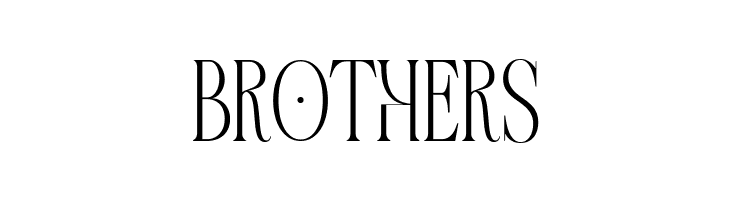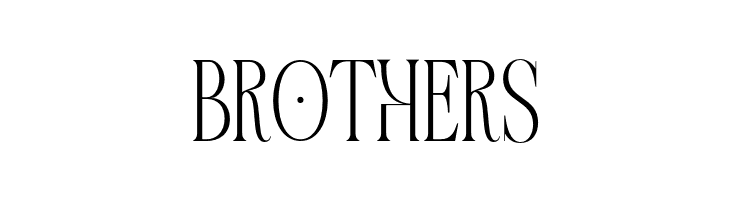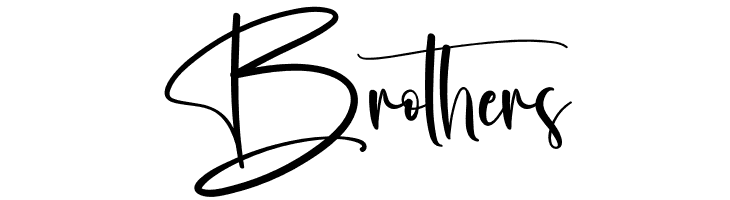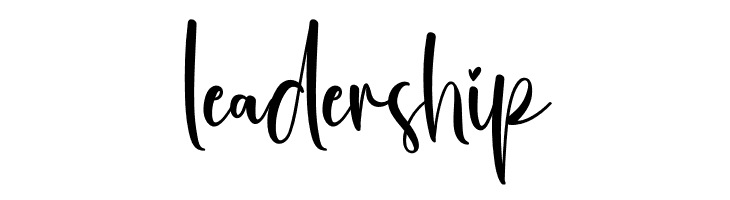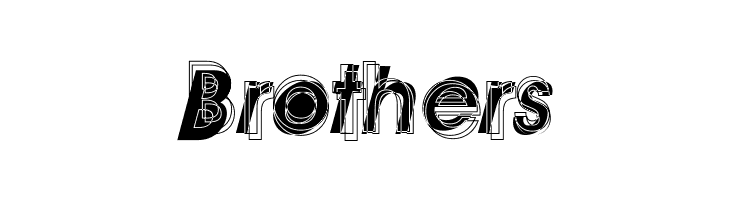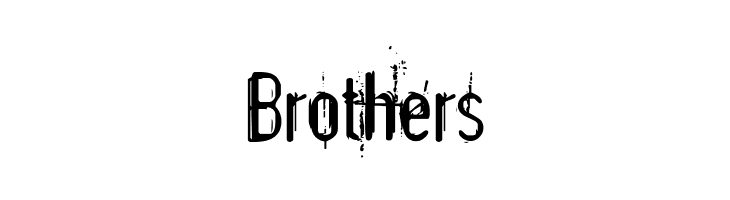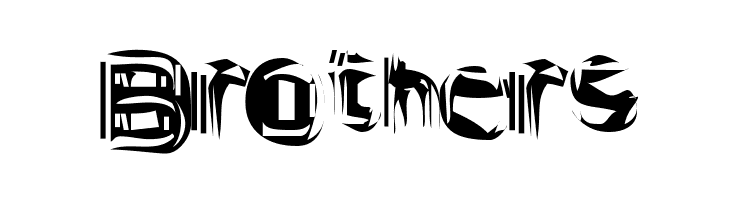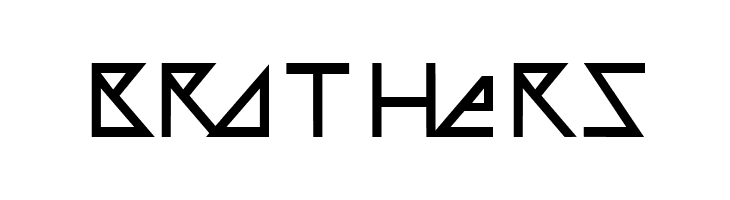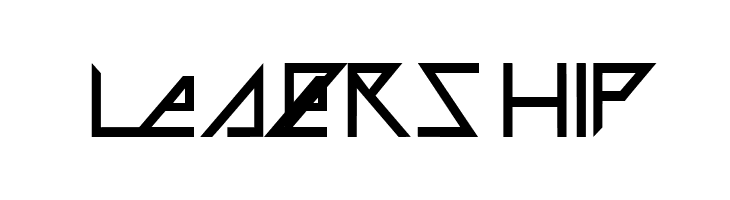
• Asterluck-Regular
A playful, bold font with rounded characters and a whimsical style.
• Asteroide
Tall, narrow handwritten sans-serif with playful irregularity.
• Asteroidea
A bold, artistic font with a hand-drawn, whimsical style.
• Asterone DEMO Regular
A modern, geometric font with clean lines and uniform stroke width.
• Astevy-Regular
A playful, casual handwritten font with flowing, irregular letterforms.
• Asthacy Reny
A cursive, handwritten font with elegant, flowing strokes.
• Astherlia - Personal Use
An elegant script font with intricate swirls and loops, perfect for artistic projects.
• Astida
A dynamic and flowing script font with elegant, cursive letterforms.
• Astigama Tizm
• Astigma Regular
A bold, three-dimensional font with overlapping outlines and filled areas.
• Astila Regular
A bold, high-contrast serif font with a modern twist.
• Astina
A graceful script font with flowing, interconnected letters and bold numerals.
• Astloch
A whimsical and decorative font with intricate loops and artistic flair.
• Astloch Regular
A decorative font with ornate loops and curls, offering a whimsical and artistic flair.
• ASTOLOGY ASTROLOGICAL TFB
A geometric font featuring astrological symbols and celestial icons.
• Astone
A lively and expressive handwritten font with fluid, cursive letterforms.